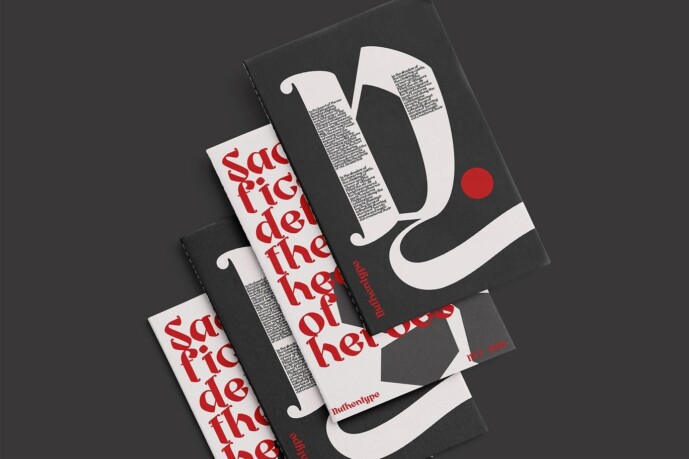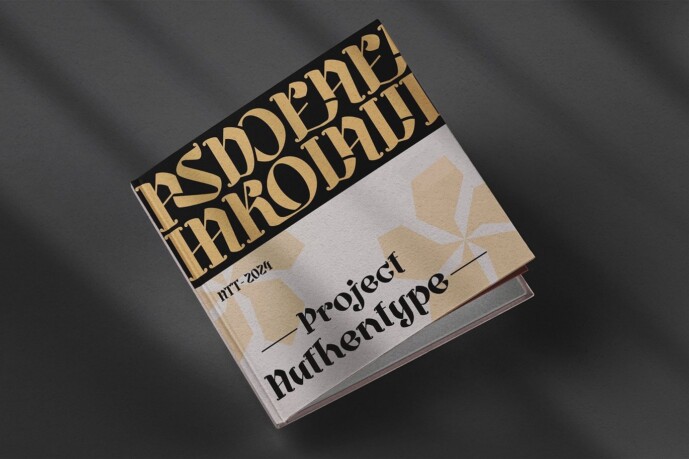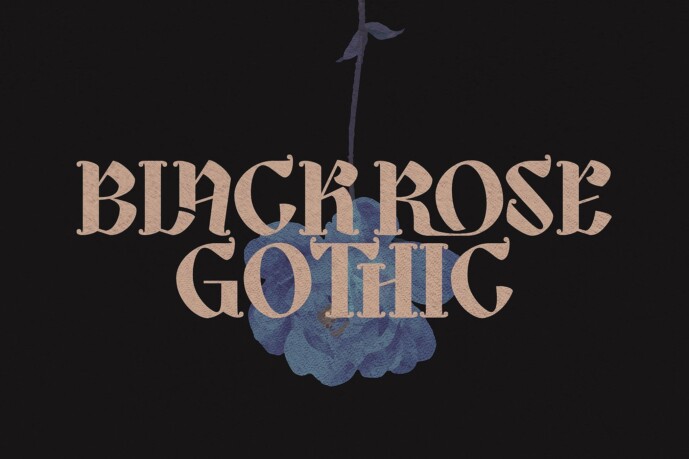
Black Rose Gothic Font
Black Rose Gothic Font is a refined Gothic serif font that seamlessly blends dark elegance with a vintage feel. Designed to captivate, this font features meticulously crafted notches, stylistic sets, and ligatures, giving each letter a unique artistic touch. Its timeless Gothic style makes it ideal for creating a moody, romantic, futuristic aesthetic that brings sophistication and depth to any project.
With full multilingual support, “Black Rose Gothic” extends its reach to a global audience, making it the perfect solution for a variety of design needs, from branding to album covers, posters, and editorial layouts. The font package includes OTF, TTF, WOFF, and WOFF2 formats, ensuring seamless compatibility across different platforms and design tools, giving you creative freedom wherever inspiration strikes.
Let Black Rose Gothic bring a touch of mystery and elegance to your designs, standing out as both a functional and aesthetic choice for those looking to make a bold statement.